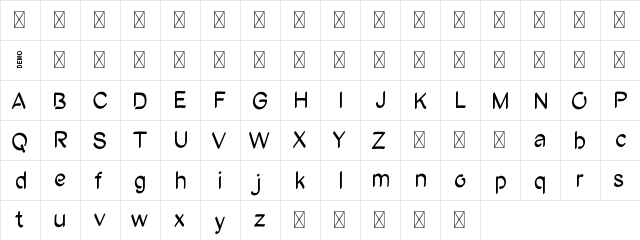
Dyobar Demo Font Preview
Dyobar Demo
Dyobar Demo Font Details
Design Context for Dyobar Typeface
Dyobar offers clean, dependable letterforms without strong stylistic allegiance, making it a practical choice for designers who need flexibility.